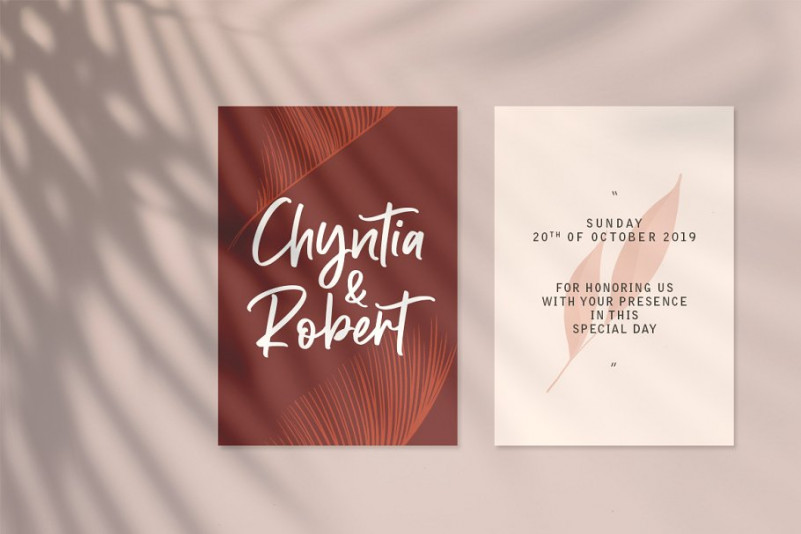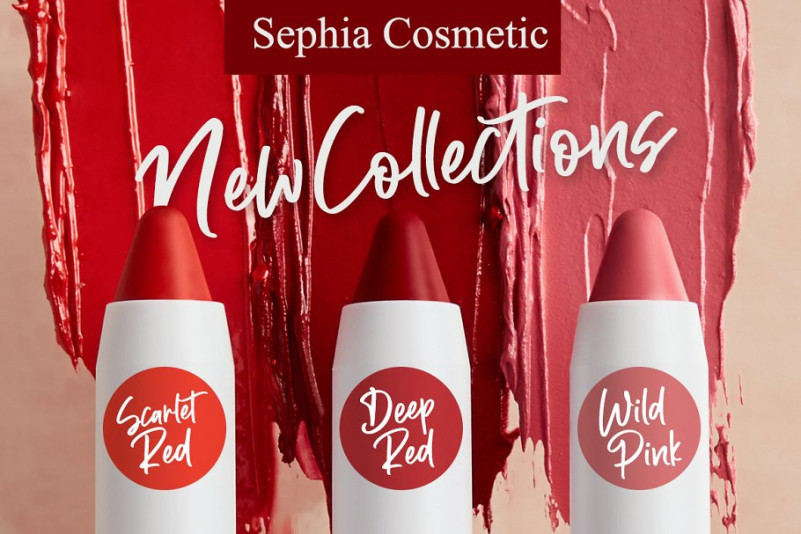
Caylee Font
Introducing the new script font called Caylee Script. With unique fast hand sweep style for your daily and project needs ex: logo, fashion, apparel, photography, watermark, quotes, blog header, poster, wedding, invitation, stationery, branding, letter, etc.